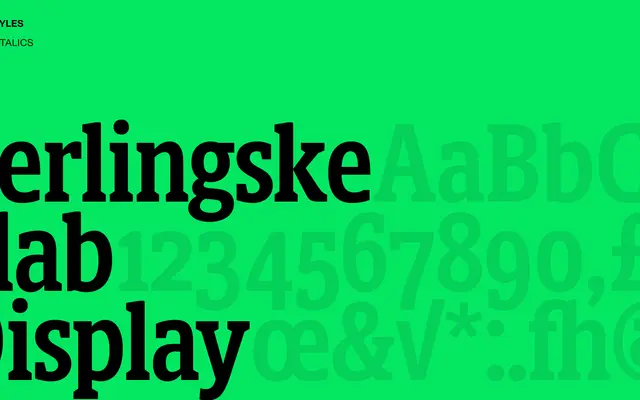
Berlingske Slab Display
A display-cut slab serif from Playtype, built for large-scale editorial and headline settings.
Part of the broader Berlingske type system, this display cut is optimised for large sizes where slab serif contrast and weight can be used to full effect. The name references Berlingske, one of Denmark's oldest newspapers, suggesting a lineage in Scandinavian editorial typography. Its display orientation suits headline and poster work where a structured, authoritative slab is needed.
The name explicitly identifies this as a slab serif display typeface, designed for large-scale editorial use in a display context.